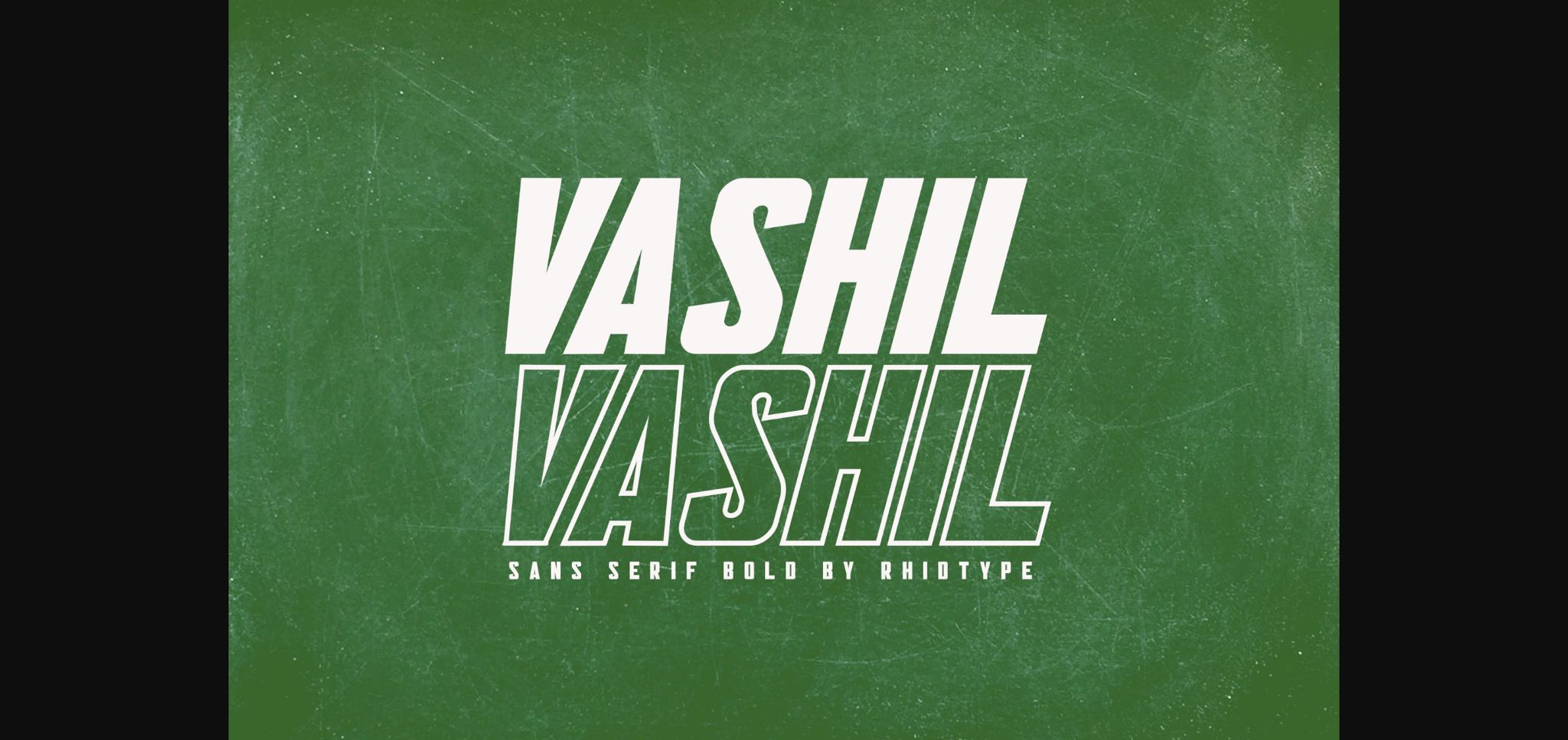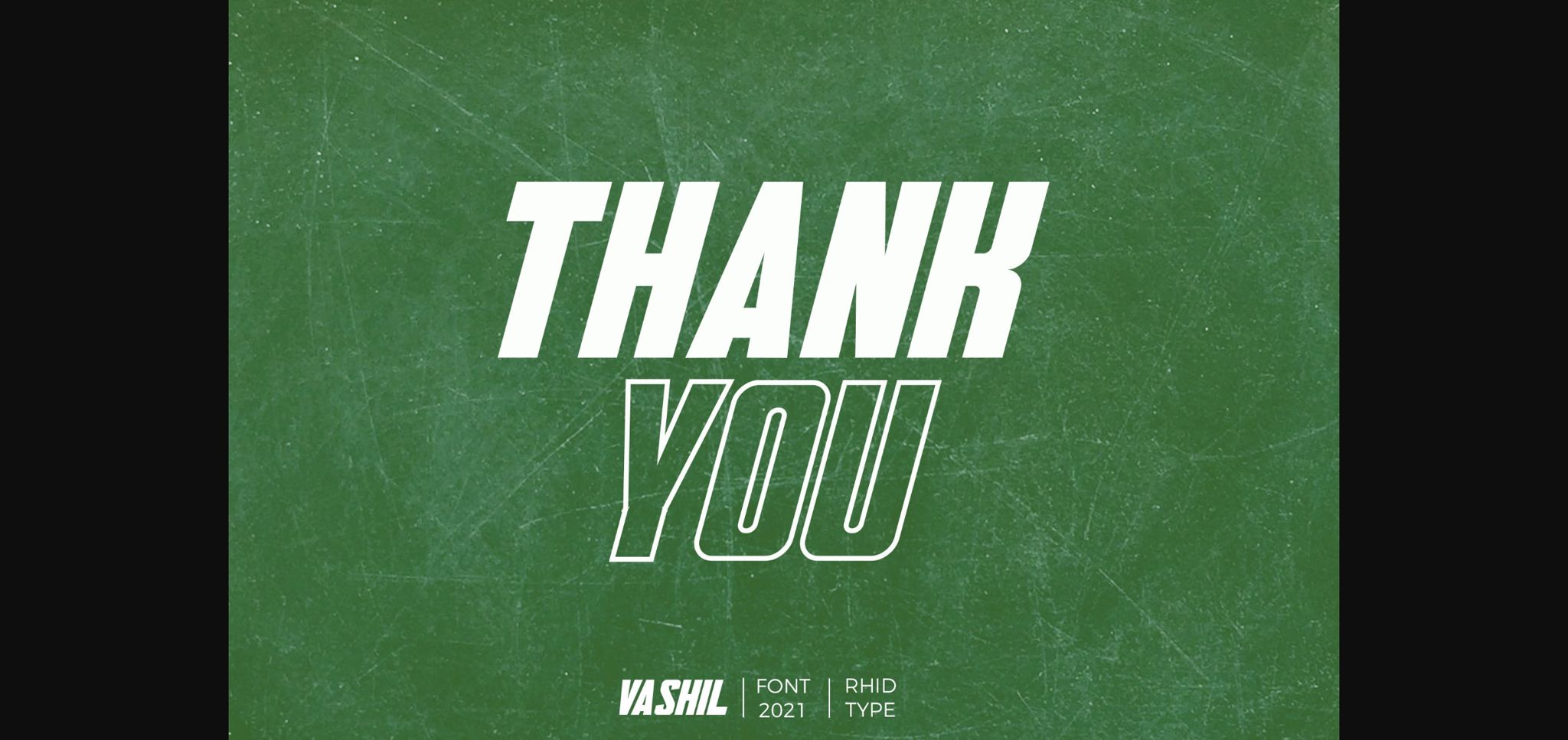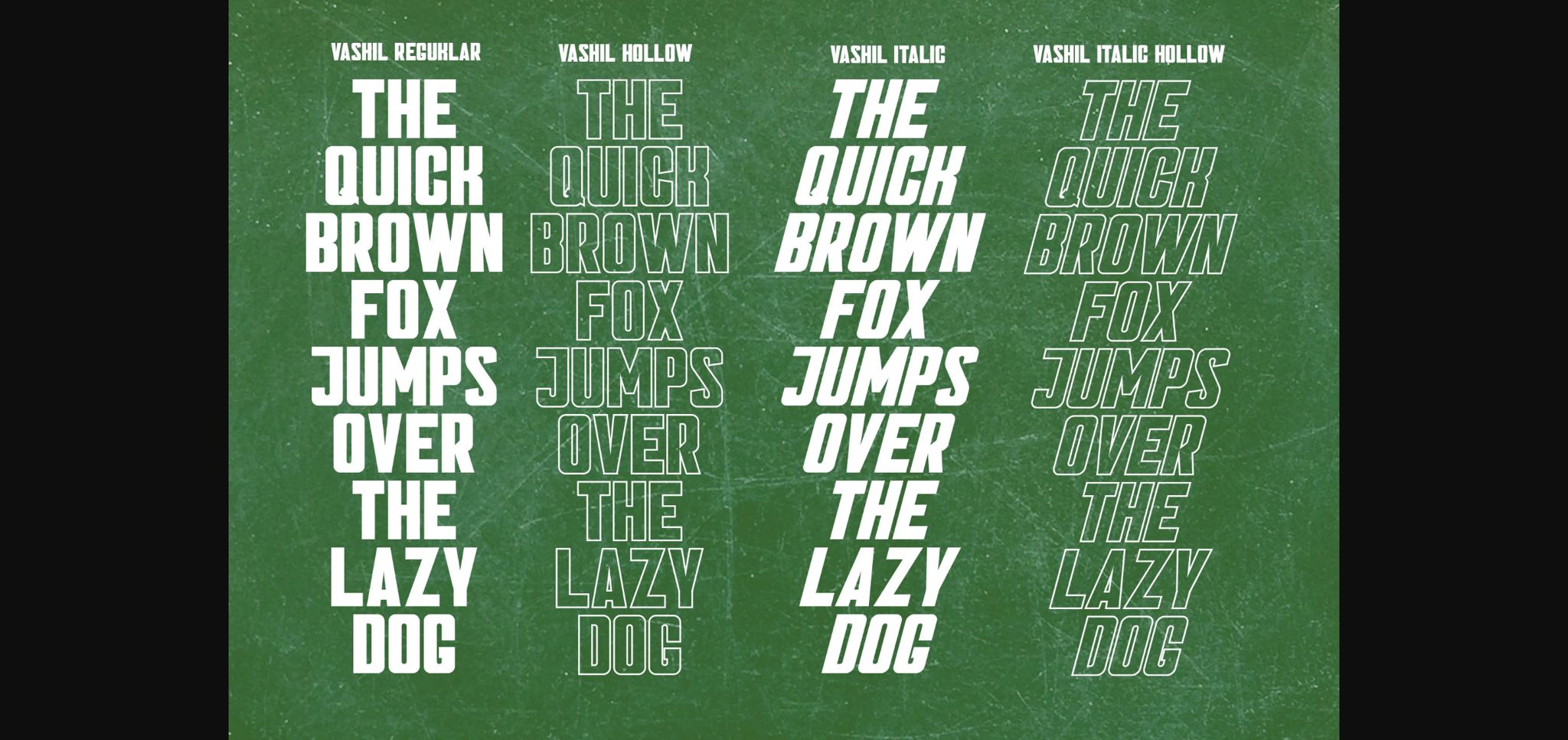
About Vashil Font
Vashil is a neat, simple and bold sans serif font. No matter the topic, this font will be an incredibly asset to your fonts’ library, as it has the potential to elevate any creation.